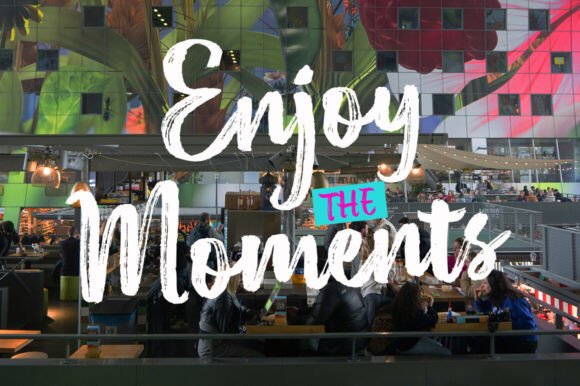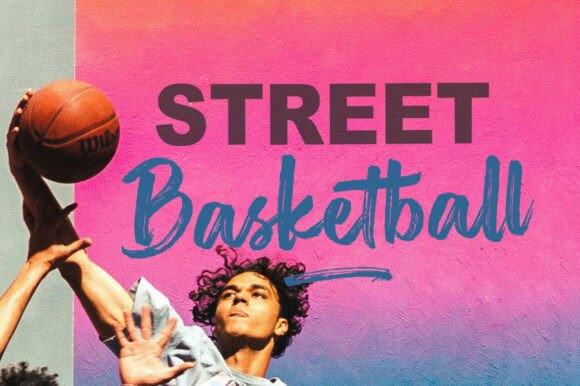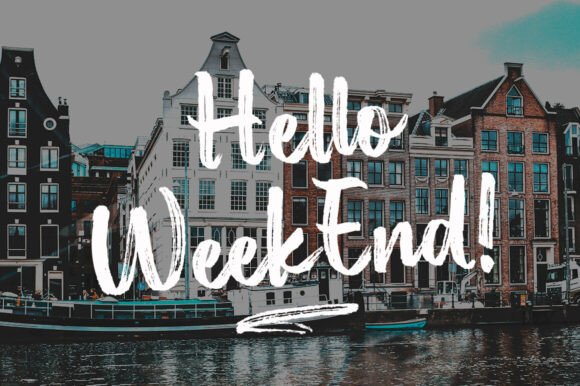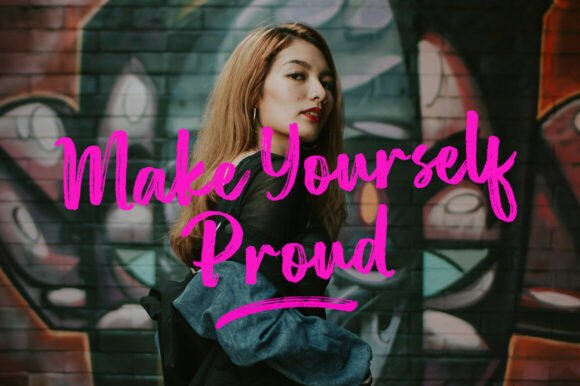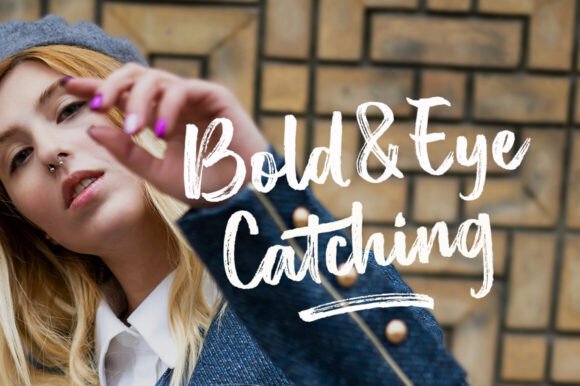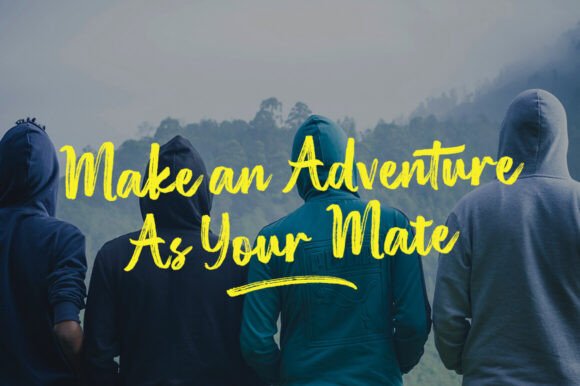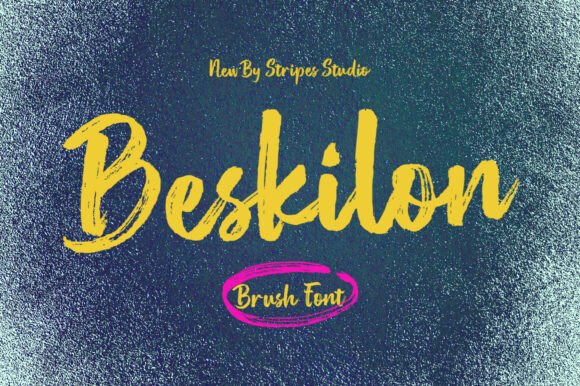
Beskilon Font: Unleash Your Creativity with this Quirky Hand-Brushed Script
Are you a designer or crafter looking for a unique and eye-catching font to add a personal touch to your projects? Look no further than Beskilon Font, a super casual hand-brushed script that exudes a quirky style and charm. In this article, we’ll dive into the features and benefits of Beskilon Font, and explore its various uses in design and crafting.
What is Beskilon Font?
Beskilon Font, also known as Beskilon Brush, is a hand-brushed script font that boasts a detailed brush stroke texture, giving it a distinct and organic feel. Its casual and quirky style makes it perfect for designs that require a personal touch, such as titles, signatures, letterheads, and more.
Key Features of Beskilon Font
• Hand-brushed script: Beskilon Font features a unique hand-brushed script style that gives it a personal and artistic feel.
• Detailed brush stroke texture: The font’s brush stroke texture adds a level of detail and authenticity to your designs.
• Quirky style: Beskilon Font’s quirky style makes it perfect for designs that require a touch of personality and whimsy.
• Versatile: The font can be used for a wide range of purposes, from titles and signatures to logos and wedding invitations.
Uses of Beskilon Font
Beskilon Font is an incredibly versatile font that can be used for various purposes, including:
• Titles and headings: Use Beskilon Font to add a touch of personality to your titles and headings.
• Signatures and letterheads: Add a personal touch to your signatures and letterheads with Beskilon Font.
• Signage and labels: Use Beskilon Font to create eye-catching signage and labels.
• Newsletters and posters: Add a touch of whimsy to your newsletters and posters with Beskilon Font.
• Logos and branding: Use Beskilon Font to create unique and memorable logos and branding materials.
• Wedding invitations and cards: Add a touch of elegance and personality to your wedding invitations and cards with Beskilon Font.
• Badges and more: Beskilon Font can also be used to create custom badges, stickers, and other design elements.
Benefits of Using Beskilon Font
So why choose Beskilon Font for your design projects? Here are just a few benefits:
• Unique and eye-catching: Beskilon Font is a one-of-a-kind font that will help your designs stand out from the crowd.
• Personal touch: The font’s hand-brushed script style adds a personal touch to your designs, making them more relatable and engaging.
• Versatile: Beskilon Font can be used for a wide range of purposes, making it a great addition to any designer’s toolkit.
• Easily readable: Despite its quirky style, Beskilon Font is easily readable, making it perfect for designs that require a clear and concise message.
Tips for Using Beskilon Font
Here are a few tips for getting the most out of Beskilon Font:
• Experiment with colors: Beskilon Font looks great in a variety of colors, so don’t be afraid to experiment and find the perfect hue for your design.
• Mix and match: Combine Beskilon Font with other fonts and design elements to create a unique and eye-catching design.
• Keep it simple: Don’t overcomplicate your design – Beskilon Font is perfect for simple, yet effective designs.
In conclusion, Beskilon Font is a unique and versatile hand-brushed script font that is perfect for designers and crafters looking to add a personal touch to their projects. With its quirky style, detailed brush stroke texture, and wide range of uses, Beskilon Font is a great addition to any designer’s toolkit. So why not give it a try and see how it can elevate your designs?